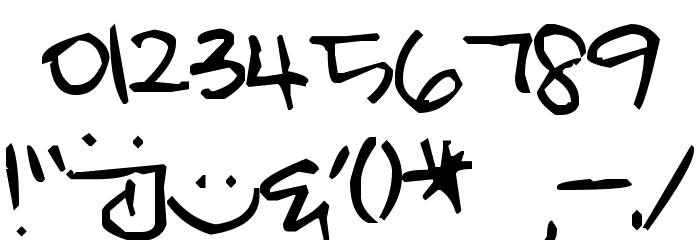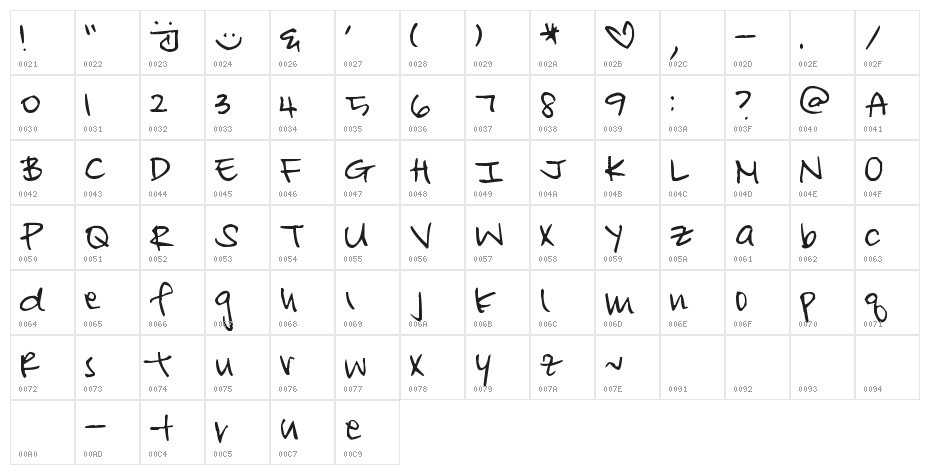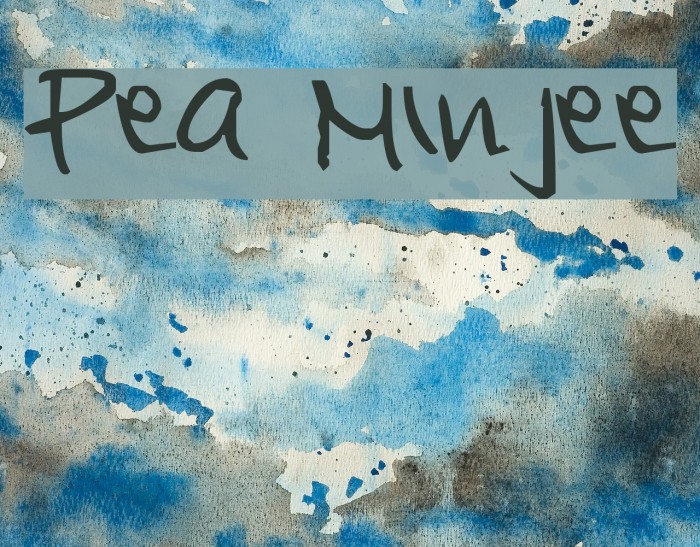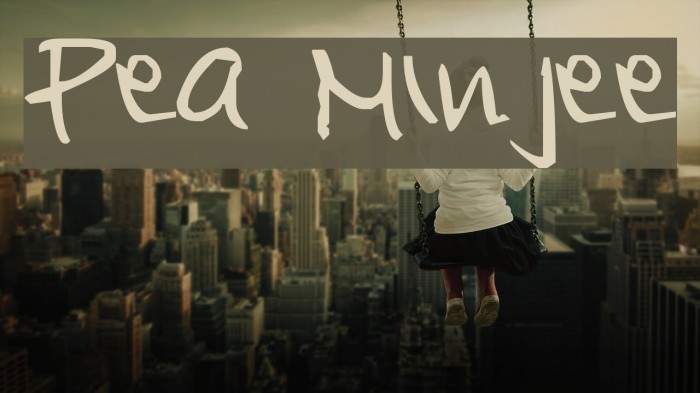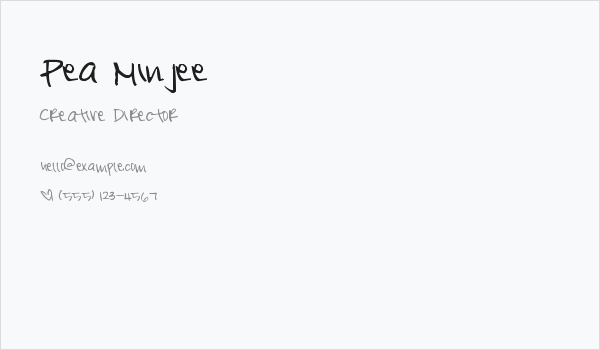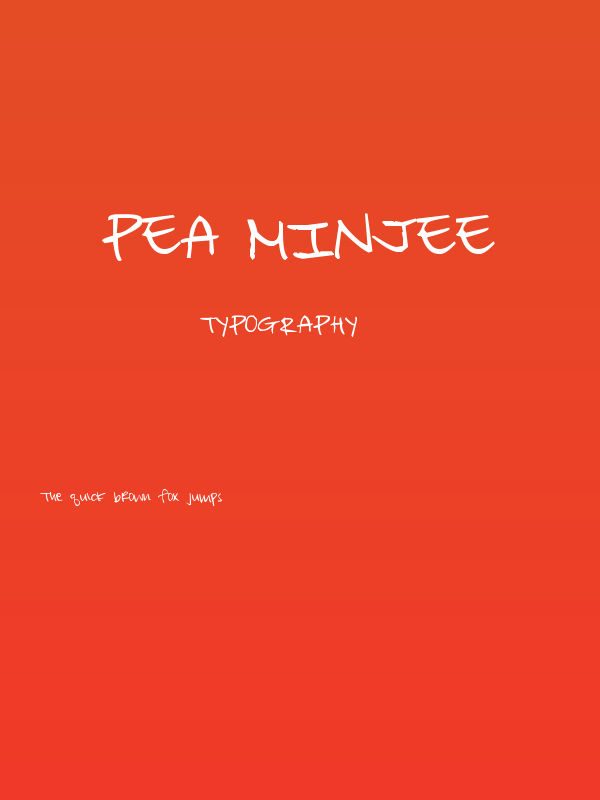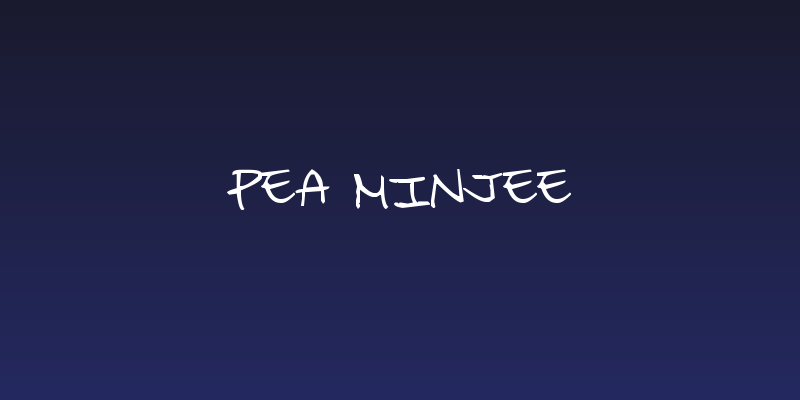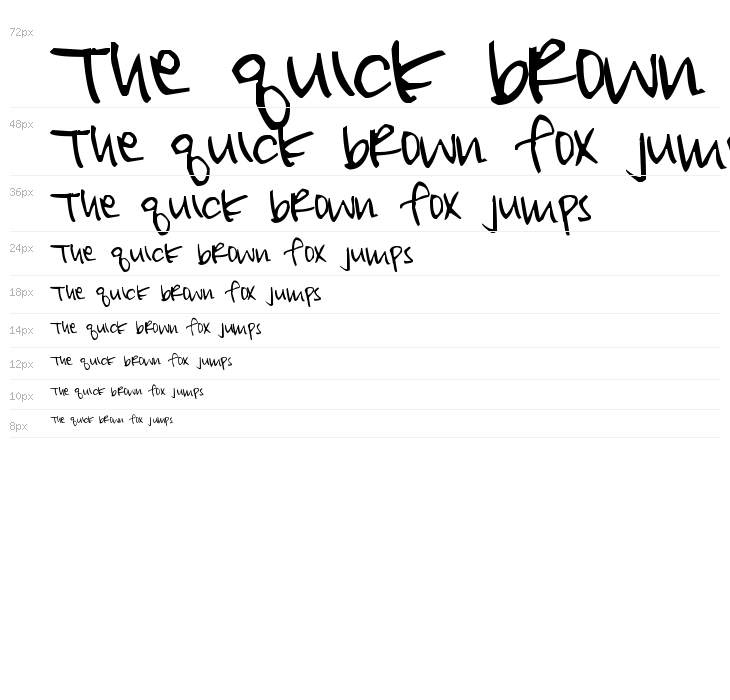
Pea Minjee Font
Pea Minjee Description
This font features a playful and casual handwritten style, characterized by its fluid and dynamic strokes. The letters are slightly slanted, giving it an informal and friendly appearance. The uppercase and lowercase letters maintain a consistent style, with a natural flow that mimics real handwriting. The numbers and special characters are crafted with the same playful touch, making them blend seamlessly with the alphabet. This font exudes a sense of spontaneity and creativity, perfect for projects that require a personal and approachable feel.
| Proposed Projects | Ideal for greeting cards, personal notes, informal invitations, and creative projects that require a personal touch. |